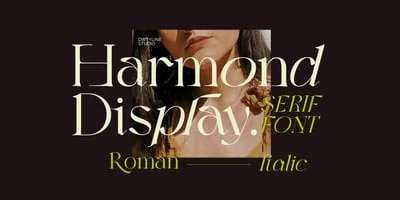
Harmond Font
The Harmond Font is perfect for classical music conservatories, symphony orchestra branding, elegant concert hall materials, traditional opera house signage, music education institutions, classical recording labels, prestigious music festivals, and sophisticated cultural arts organizations. This refined typeface works exceptionally well in applications where musical harmony and classical elegance need to be emphasized, making it perfect for institutions that want to communicate artistic excellence and timeless musical sophistication through distinguished typography.
What makes Harmond Font exciting is its perfect harmony of classical proportions and musical rhythm that creates visual symphonies in every letterform. The font's balanced character design and harmonious spacing create an atmosphere of musical sophistication and artistic refinement, making it ideal for organizations that want to convey the beauty and precision found in classical musical compositions. Its elegant presence ensures that every application resonates with the timeless appeal of musical artistry and cultural distinction.
The Harmond Font family typically includes light, regular, and bold weights, often featuring musical notation elements, classical ornaments, and harmonic symbols that enhance its artistic appeal. Many versions include treble clef motifs, staff line decorations, and specialized characters that provide designers with comprehensive tools for creating authentic music-themed design projects with genuine classical sophistication and artistic excellence.
For designers working on projects that require musical authenticity and classical credibility, Harmond Font offers exceptional artistic harmony. Its ability to instantly communicate musical excellence and cultural sophistication makes it an invaluable choice for music institutions, classical artists, and any project requiring typography that embodies the timeless beauty of musical harmony, the precision of classical composition, and the elegant sophistication of traditional musical arts.